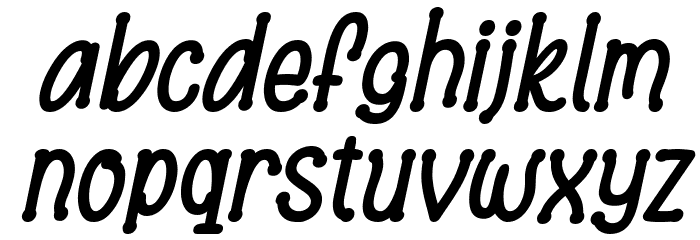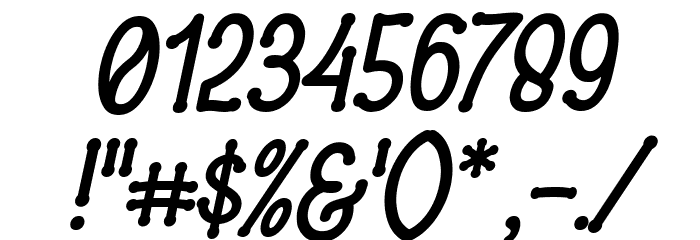
Bronice Italic Font
This font features a playful and dynamic script style with a slight slant, giving it an italicized appearance. The characters are bold and rounded, with a consistent stroke width that adds to its legibility. The uppercase letters are slightly larger than the lowercase, maintaining a harmonious balance. Numbers and special characters are designed to match the overall aesthetic, ensuring a cohesive look across all text. The font's smooth curves and flowing lines make it suitable for projects that require a friendly and approachable feel.
A bold, italic script font with rounded, playful characters.
- Proposed Projects: Ideal for greeting cards, playful branding, children's books, and casual invitations.
- Category: Script
- Overall Style: Playful
- Use Case: Logos, Headlines, Invitations